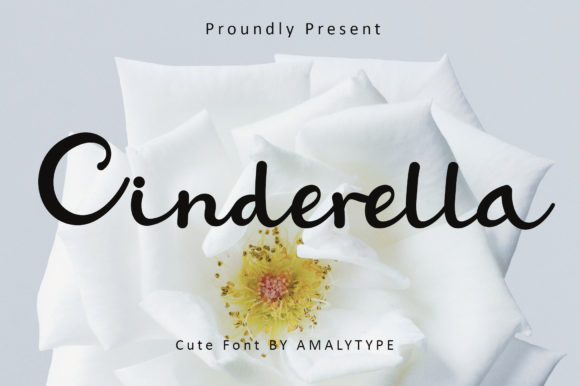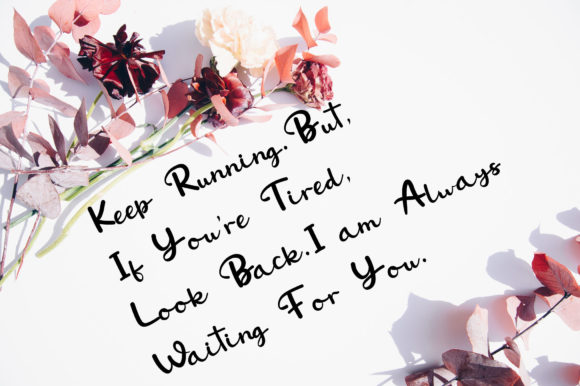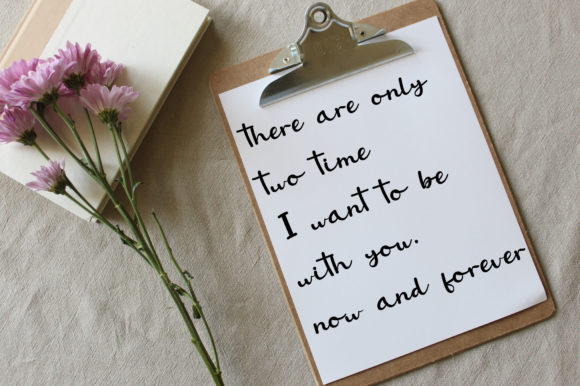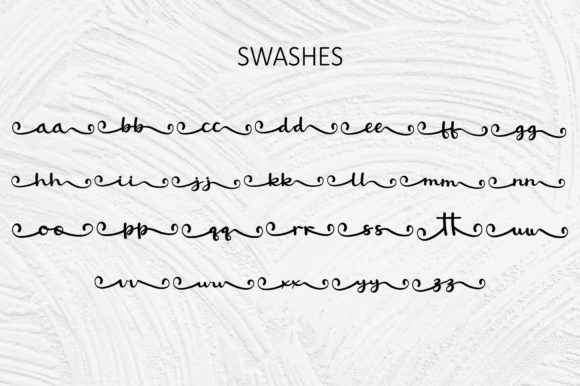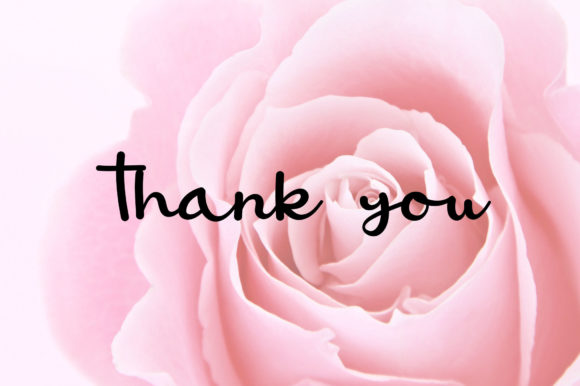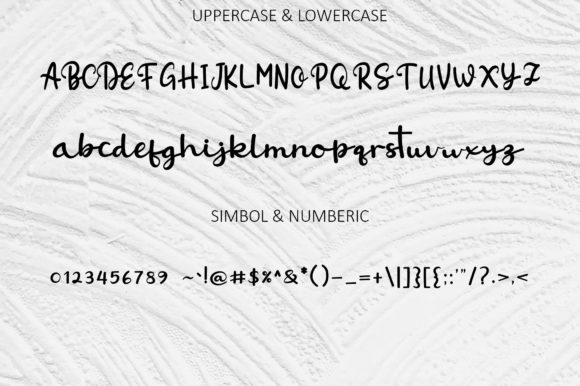
About Cinderella Font
Cinderella is a sweet and cursive handwritten font. This gentle font will look gorgeous on a variety of design ideas. Cinderella is PUA encoded which means you can access all of the glyphs and swashes with ease!